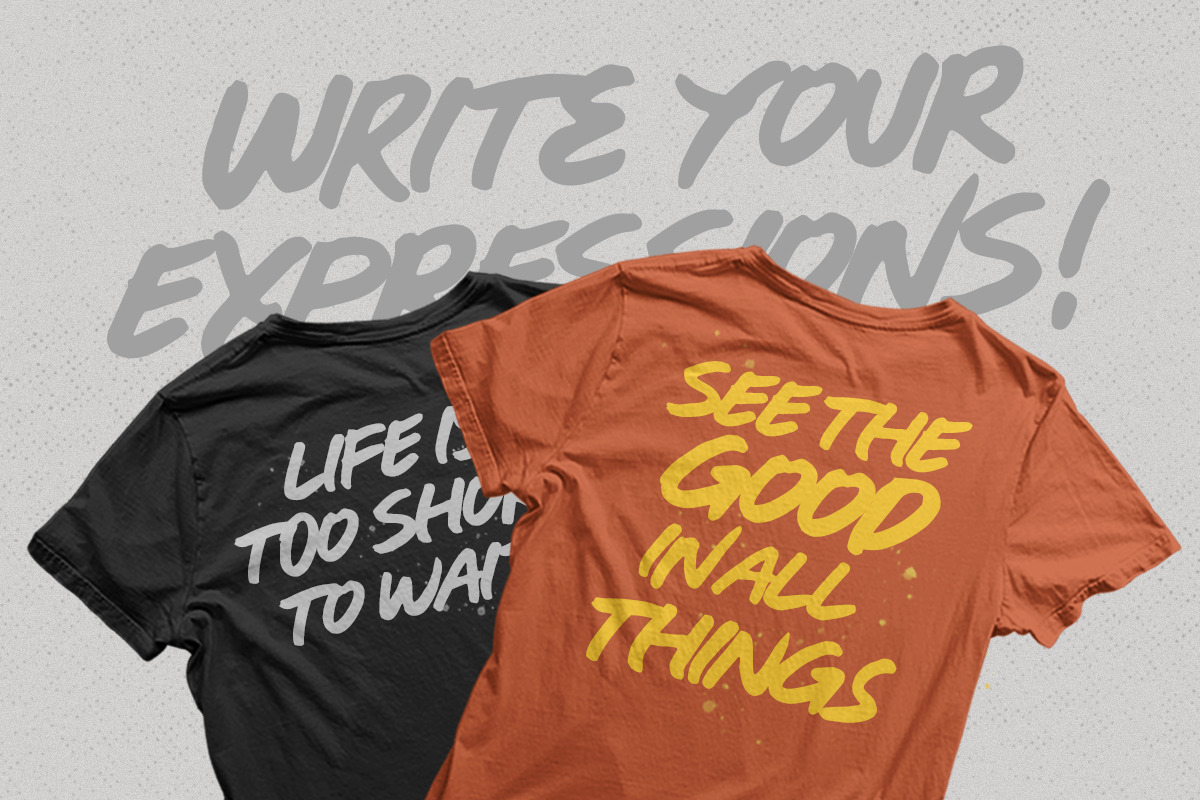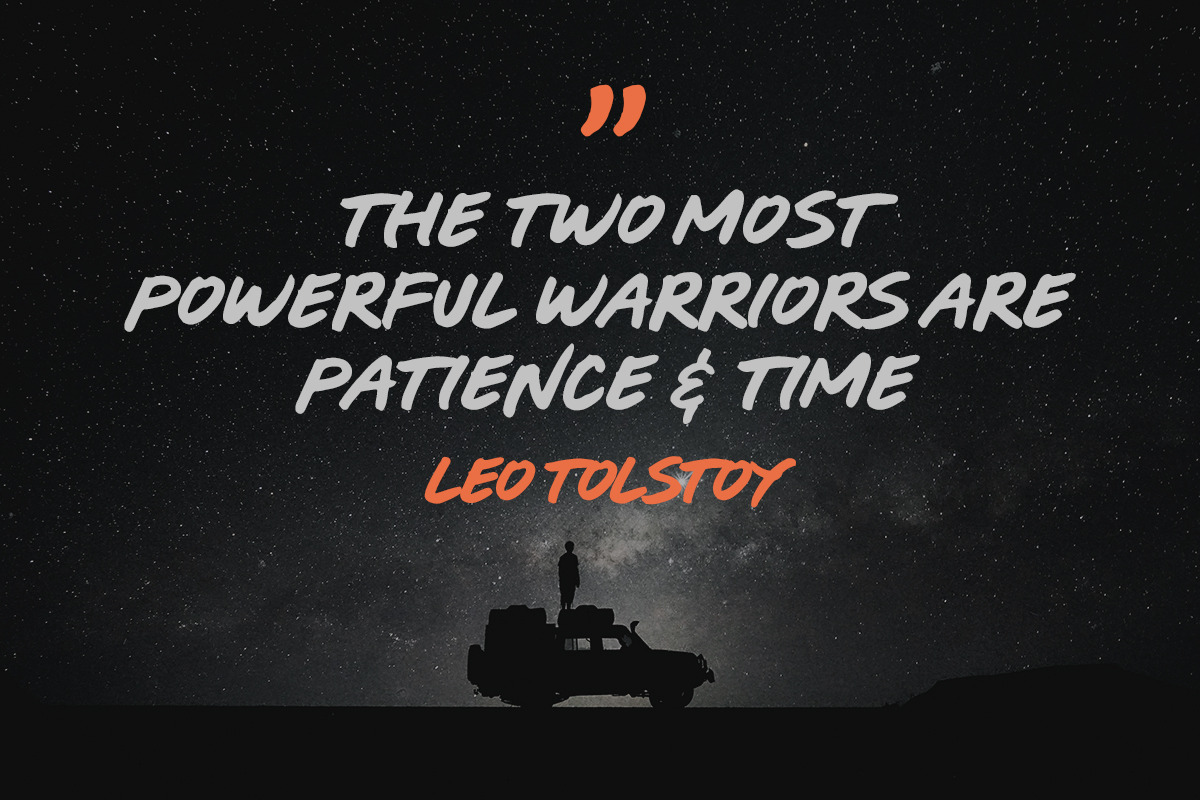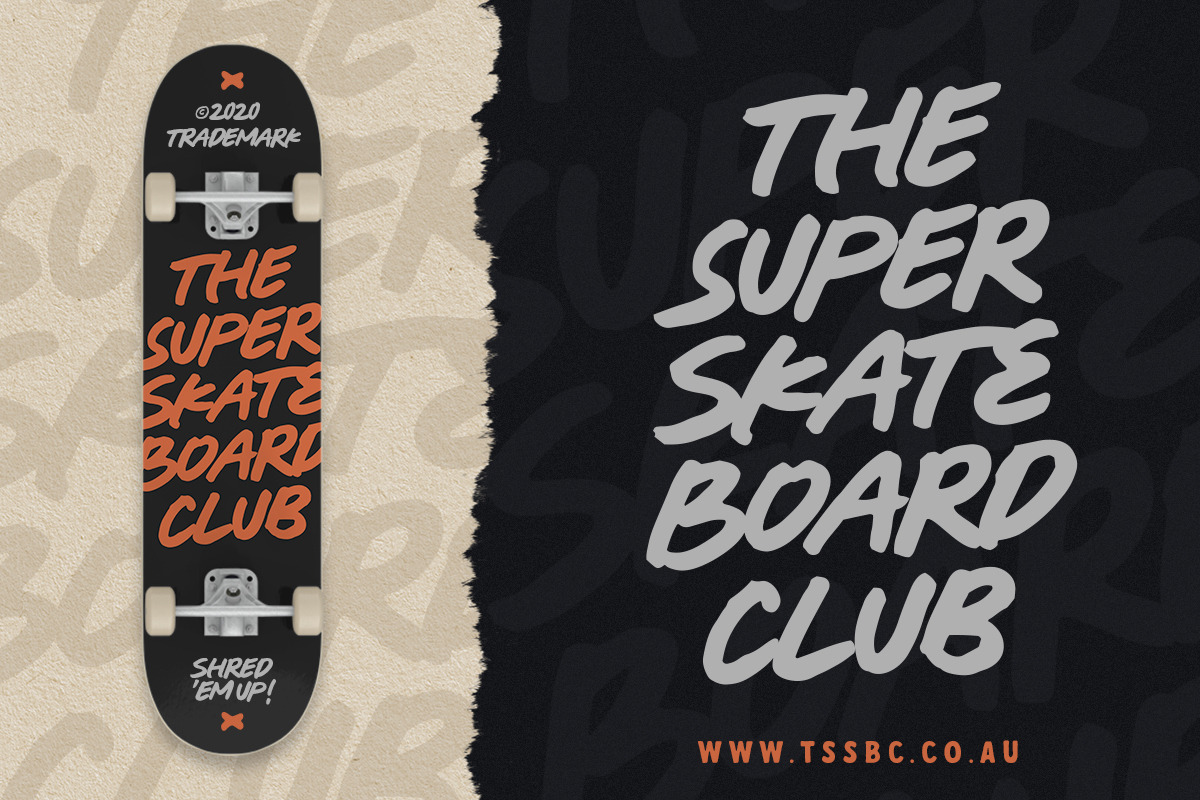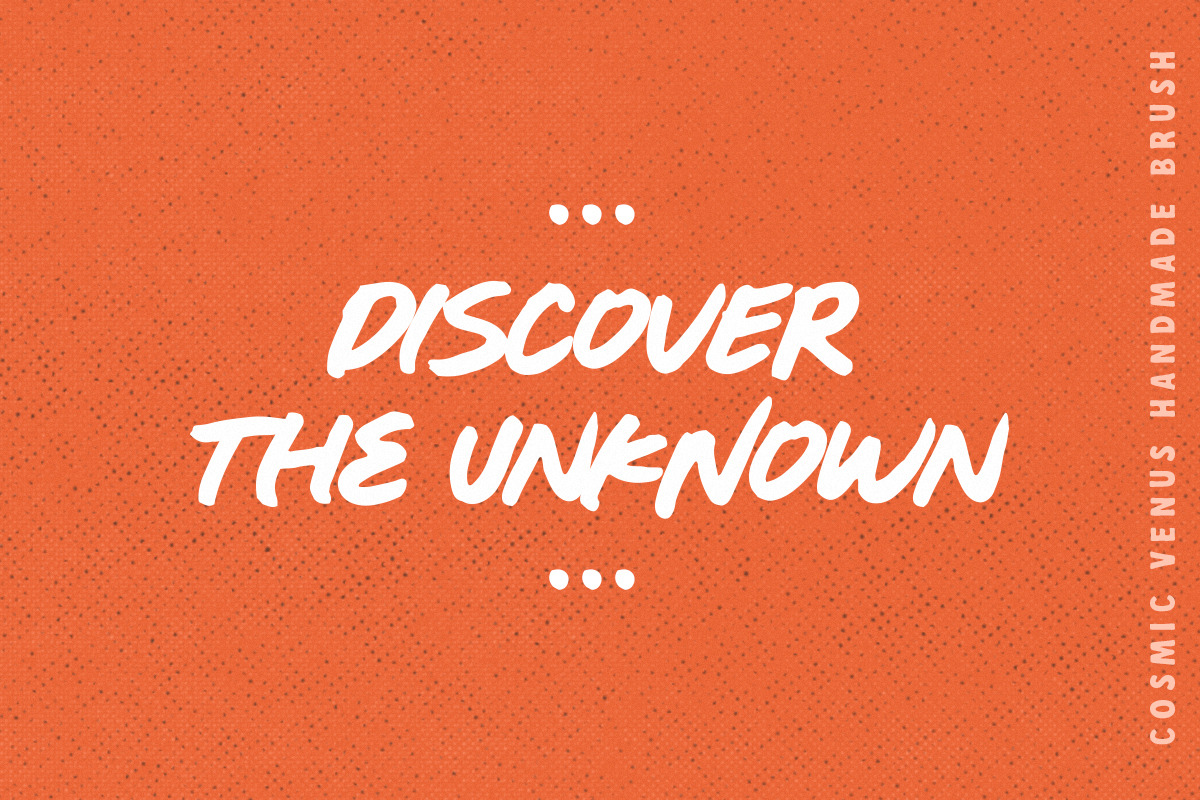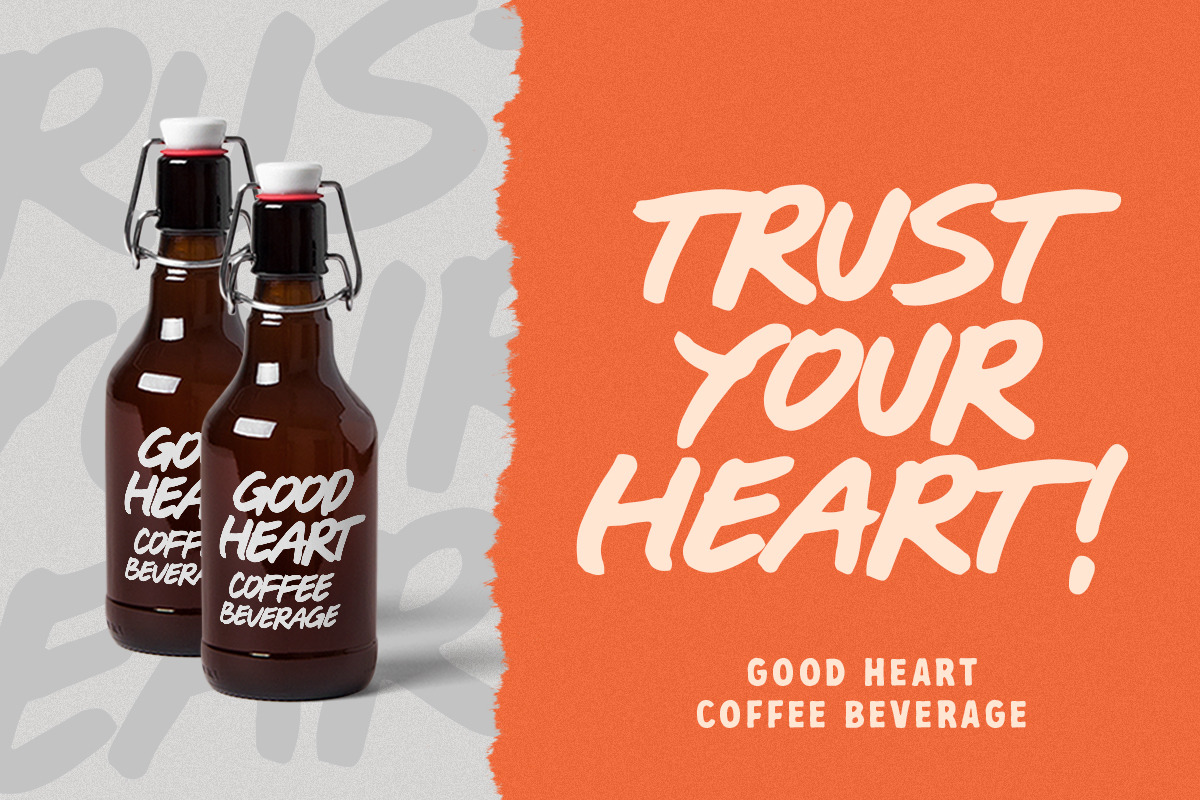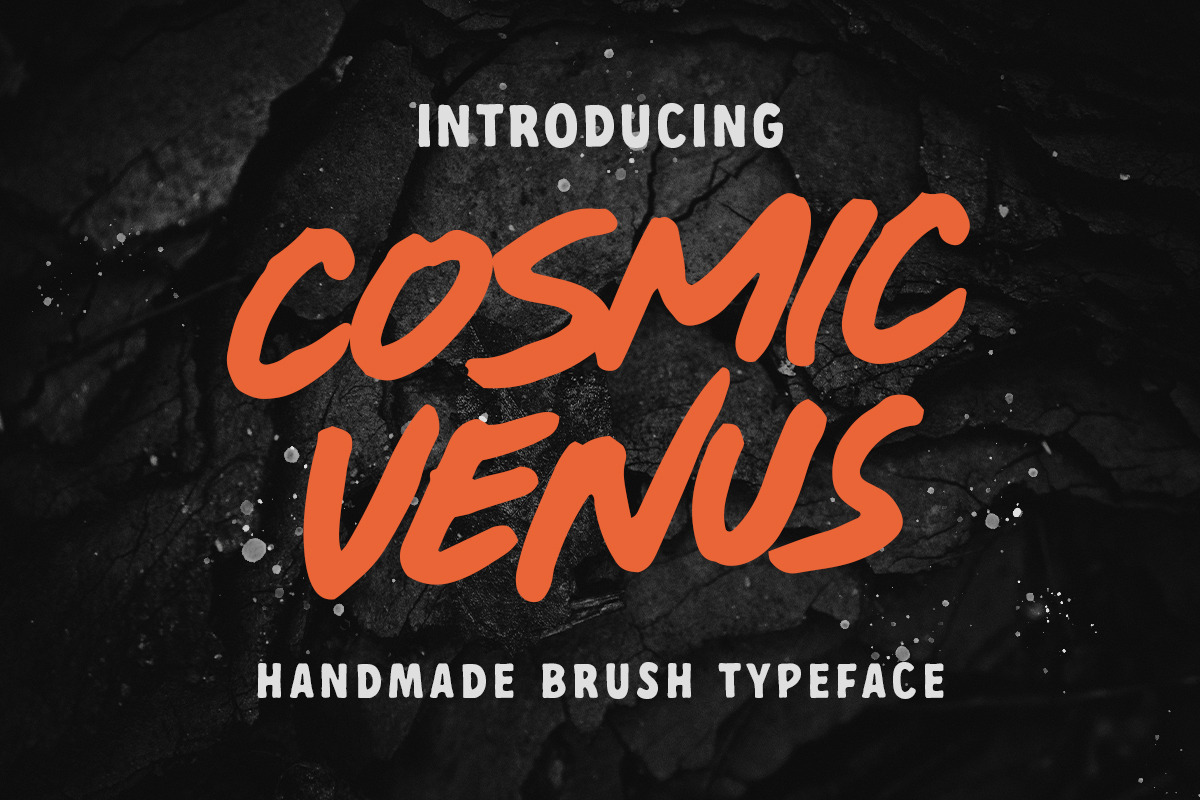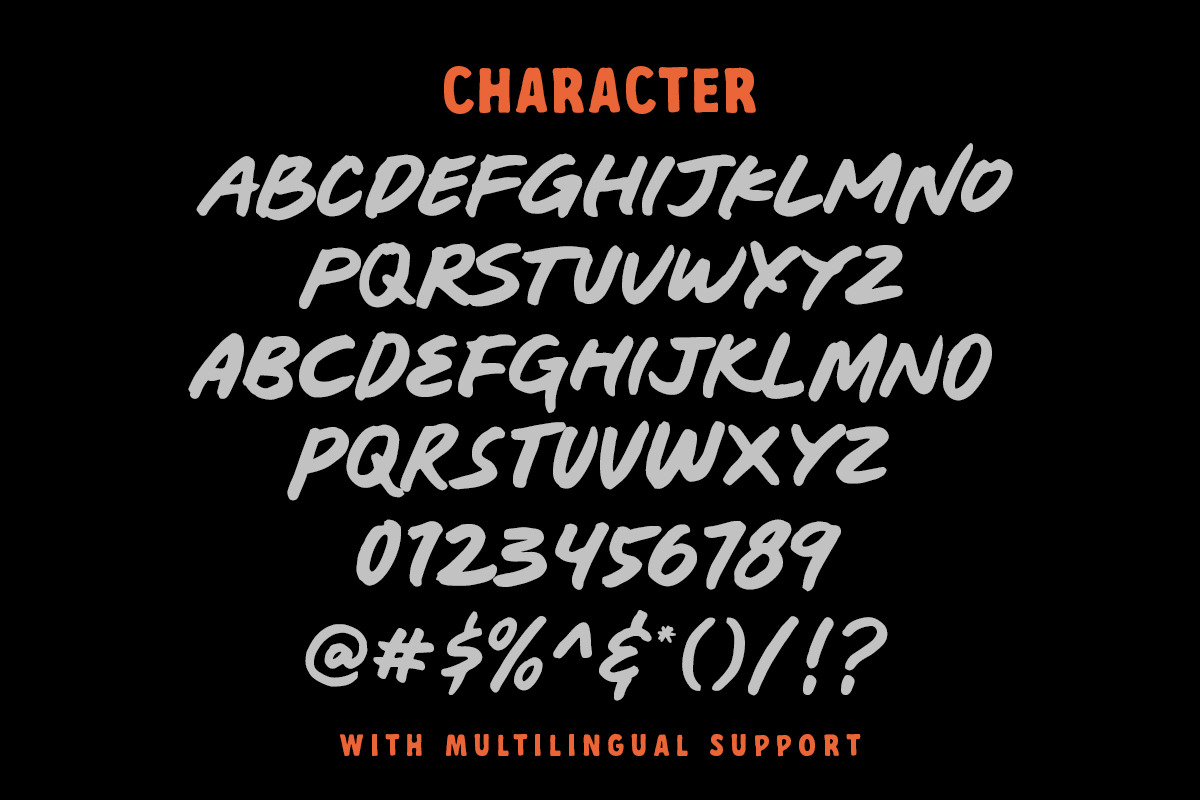
Cosmic Venus - Brush Typeface
Cosmic Venus is a handmade brush typeface with bold and strong feel. This type of font perfectly made to be applied especially in headlines which is need a standout font, and the other various formal forms such as labels, logos, magazines, books, packaging, fashion, stationery, novels, labels or any type of advertising purpose.
- Uppercase & lowercase (alternates)